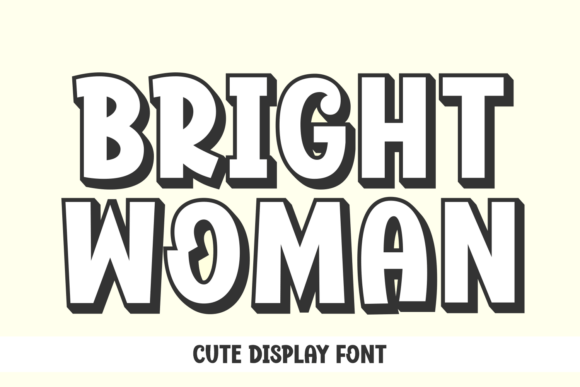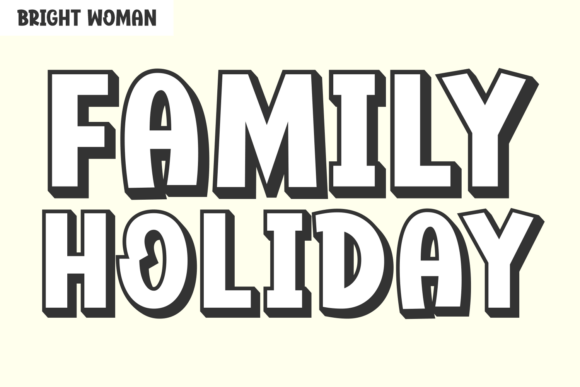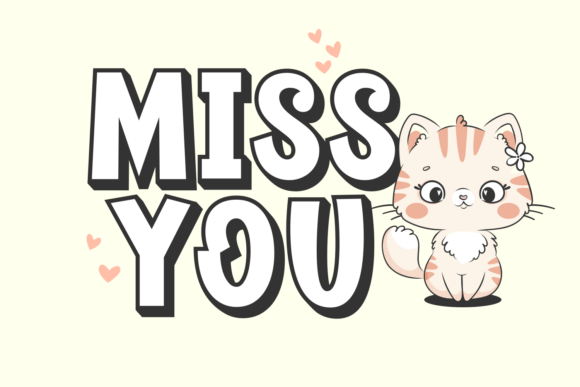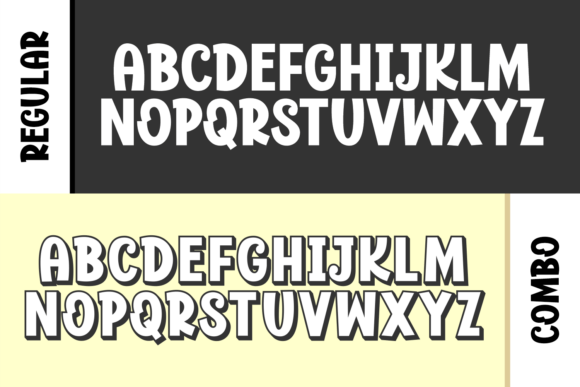
Bright Woman Font
Bright Woman – A Fun and Playful Display Font
Say hello to Bright Woman, a bold and cheerful display font that shines with confidence and creativity!
This font brings together strong shapes and playful curves, making every word pop with personality. Its cute, cartoon-inspired style is full of energy and perfect for projects that need a happy, standout vibe.
Whether you’re designing children’s books, logos, posters, t-shirt prints, greeting cards, packaging, or fun social media graphics, Bright Woman adds instant charm and friendliness to your work.
The typeface includes both Regular and Combo versions — giving you flexibility to mix, match, and layer for eye-catching results. It’s bold enough to make a statement but soft enough to stay approachable.
Let your ideas shine bright and bold with Bright Woman, the font that celebrates creativity, positivity, and fun design!